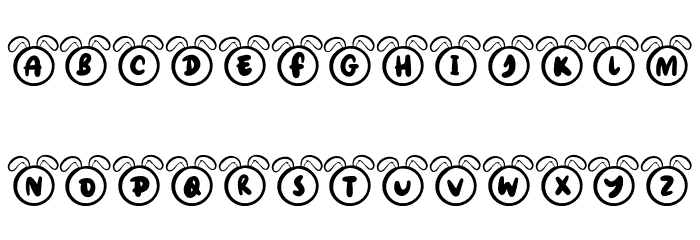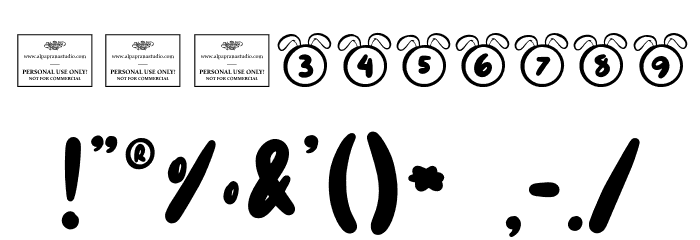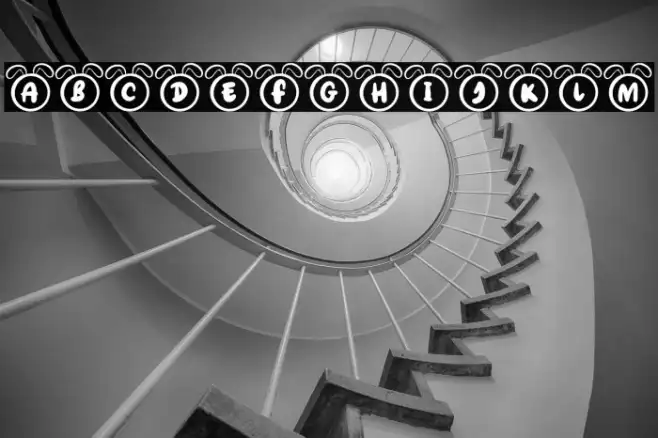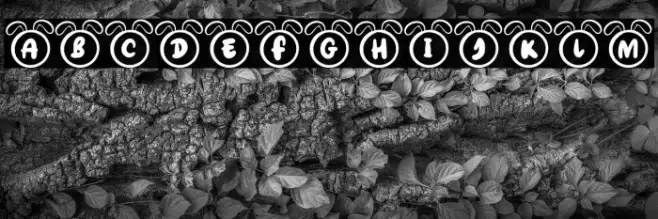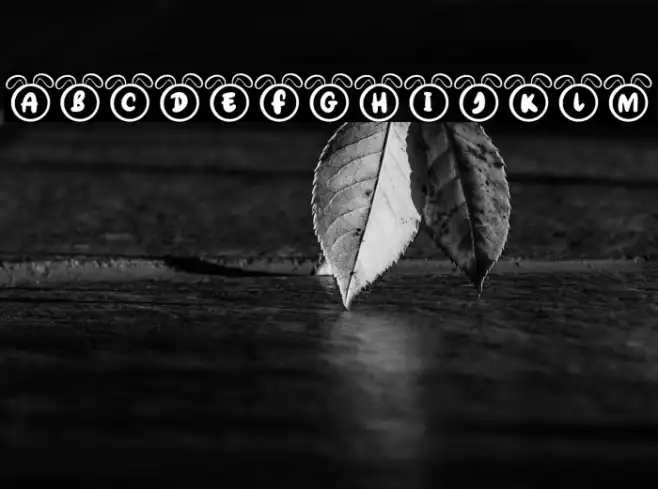
BunnyRegular Font
This playful and whimsical font features characters enclosed in circular shapes, each topped with a small, curved accent resembling bunny ears. The letters are bold and rounded, creating a friendly and approachable appearance. The consistent use of circles provides a unique and cohesive look, making it stand out as a decorative choice. The font includes both uppercase and lowercase letters, numbers, and a selection of special characters, all maintaining the same playful style. Its distinct design is perfect for projects that require a touch of fun and creativity.
A playful font with characters in circles topped with bunny ear-like accents.
- Font: BunnyRegular
- Proposed Projects: Ideal for children's books, playful branding, party invitations, and creative posters.
- Overall Style: Playful, Whimsical
- Use Case: Logos, Posters, Invitations